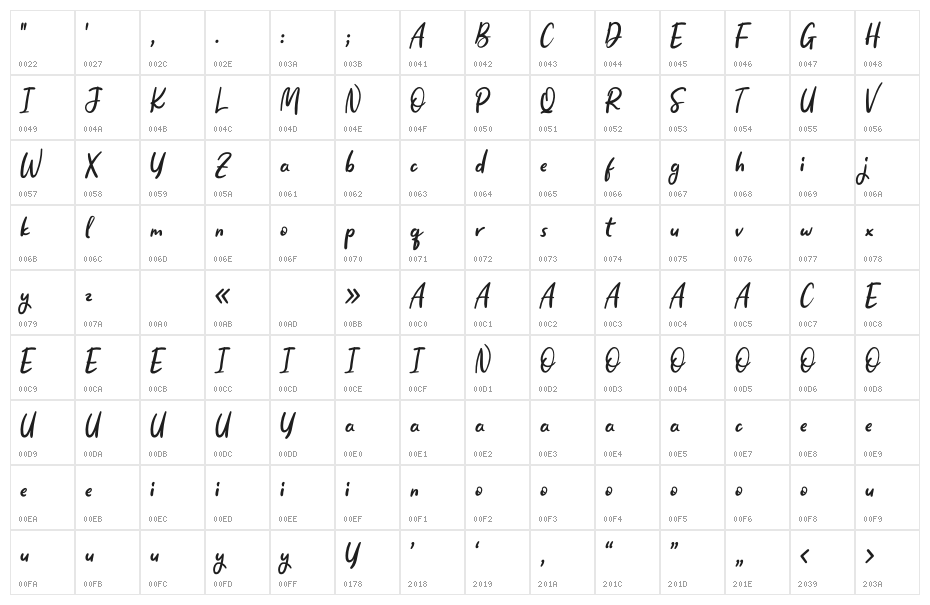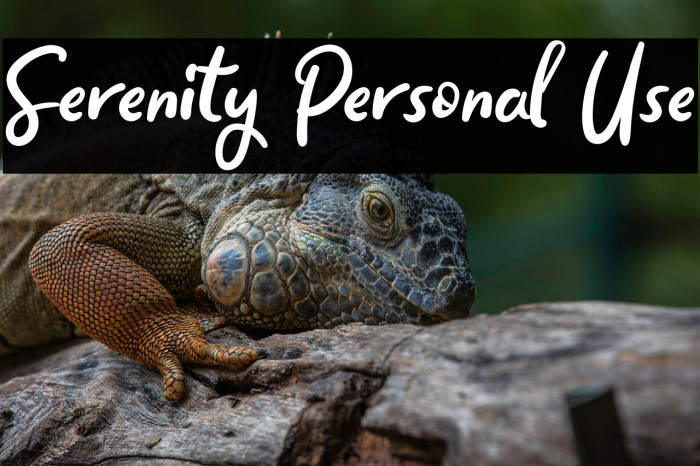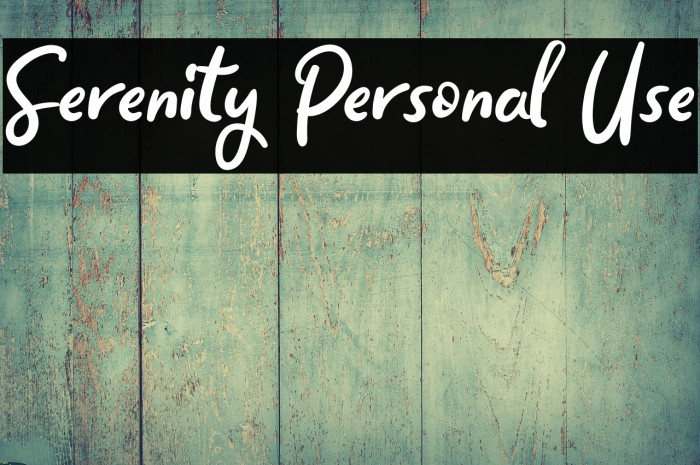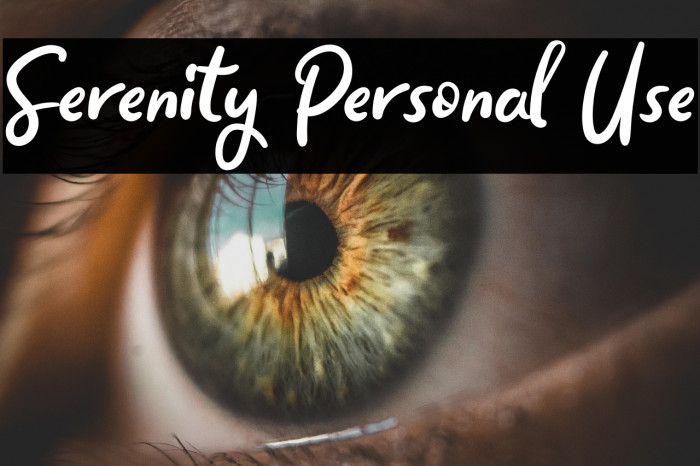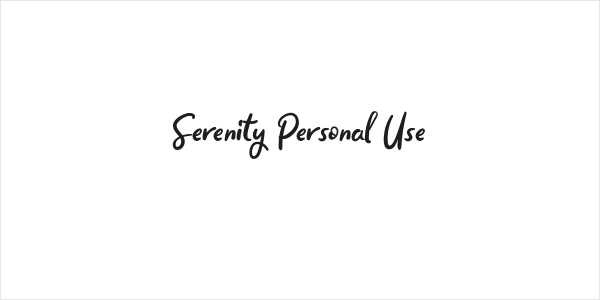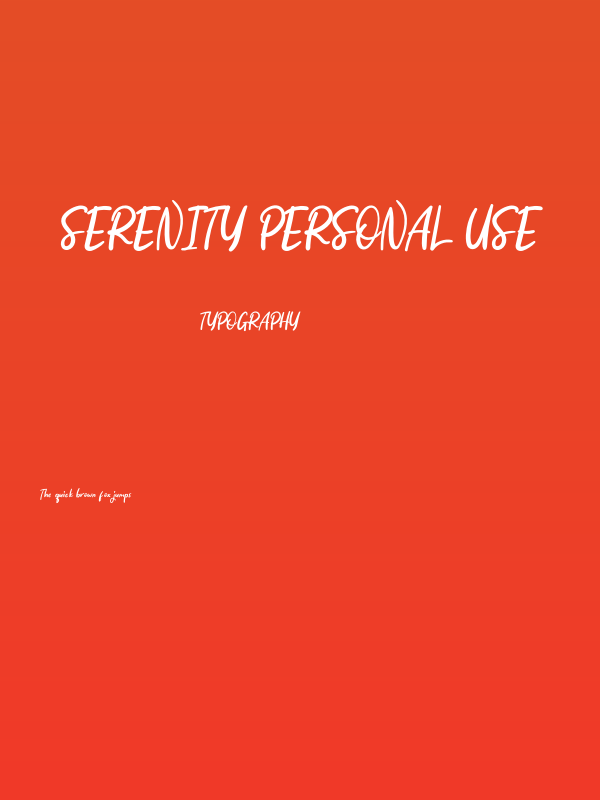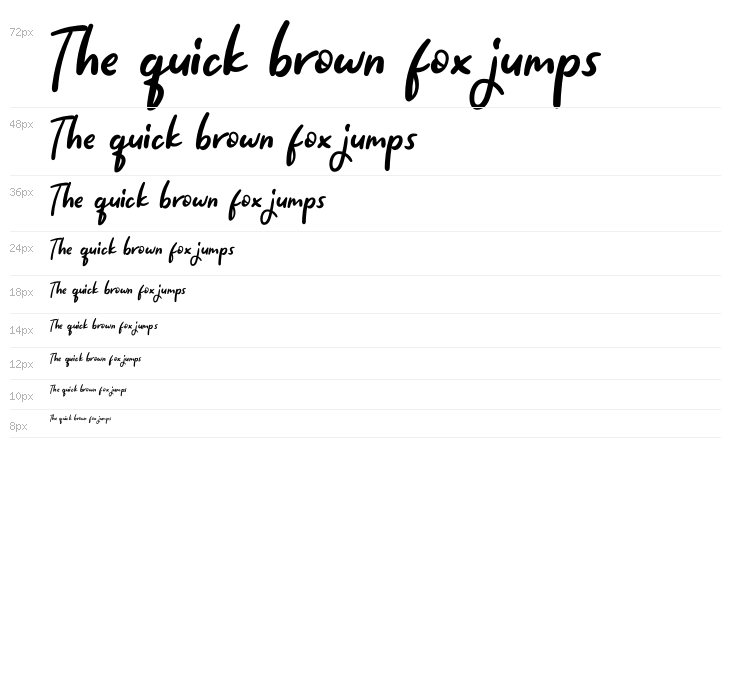
Serenity Personal Use Font
Serenity Personal Use Description
A flowing, handwritten script font with a casual and friendly appearance.
| Overall Style | Casual, Friendly |
| Use Case | Logos, Invitations, Personal branding |
| Proposed Projects | Invitations, greeting cards, personal branding. |